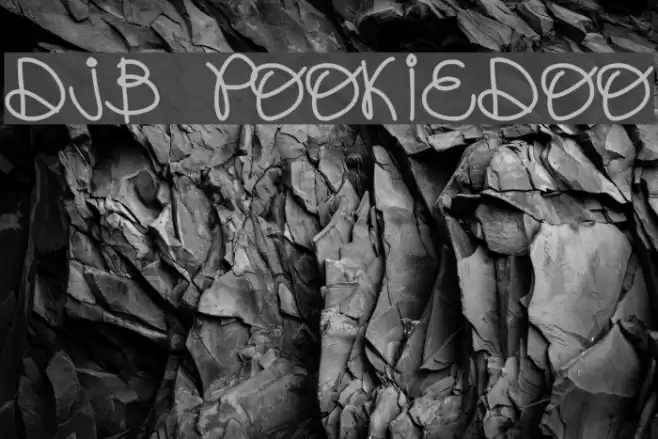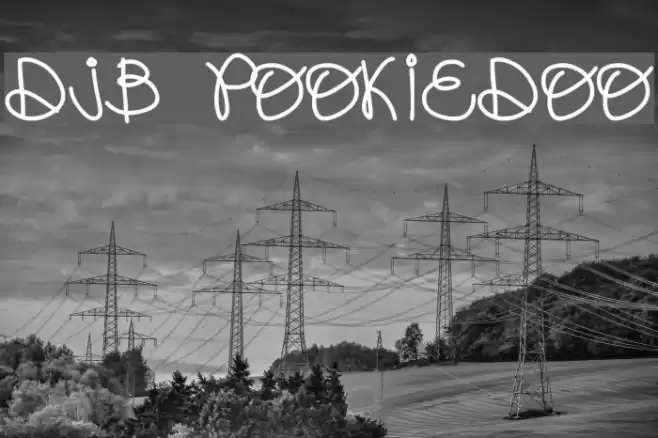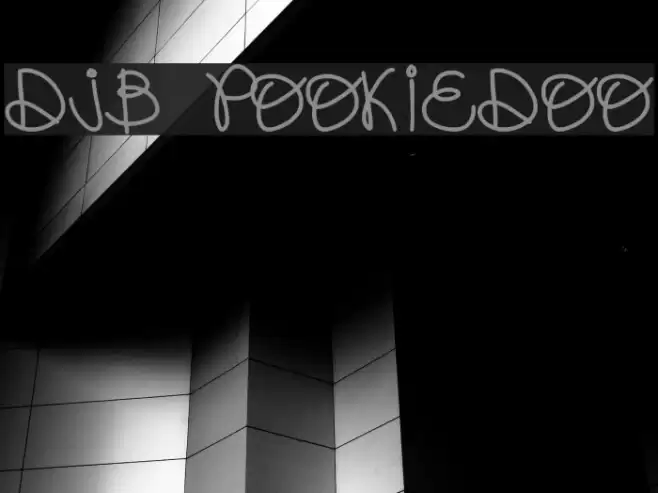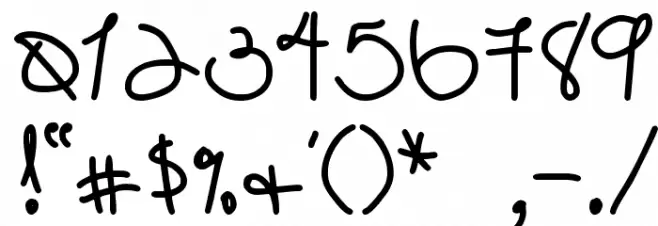
DJB POOKIEDOO Font
DJB POOKIEDOO Description
This playful and whimsical font features a handwritten style with a casual, friendly appearance. The letters are rounded and slightly irregular, giving them a charming, childlike quality. The uppercase and lowercase letters maintain a consistent flow, while the numbers and special characters are designed to complement the overall aesthetic. The strokes are smooth and consistent, with a medium thickness that ensures readability. This font exudes a sense of fun and creativity, making it ideal for projects that require a personal touch.
A playful, handwritten font with a whimsical and friendly style from Uncategorized fonts.
- Proposed Projects: Ideal for children's books, greeting cards, playful branding, and creative projects.
- Overall Style: Playful
- Use Case: Headlines, Logos, Informal text